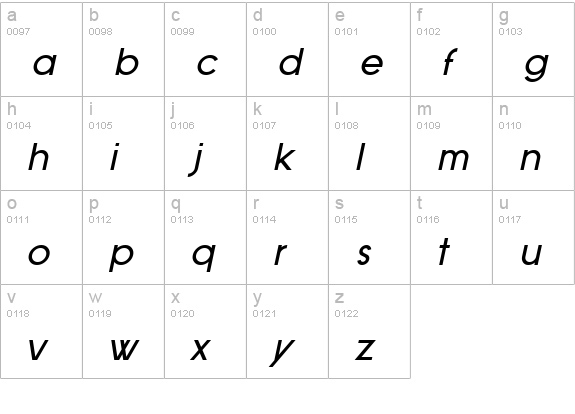
SF Old Republic Italic Font Details
SF Old Republic Italic is a distinctive, italic variant in the SF typeface family \xE2\x80\x94 well suited to design and typography projects.
Introducing SF Old Republic Italic font, a mesmerizing typeface that effortlessly captures the essence of a bygone era. This exquisite font pays homage to the illustrious days of the Old Republic, where tales of epic adventures and timeless legends were forged. With its elegant and graceful strokes, SF Old Republic Italic font transports you to a world of limitless imagination. Whether you are designing a book cover, creating a logo, or crafting a vintage-inspired poster, this font will add a touch of authenticity and nostalgia to your project. The beauty of SF Old Republic Italic font lies not only in its captivating aesthetics but also in its versatility. Its delicate slant and distinctive letterforms make it suitable for a wide range of creative endeavors, from branding and advertising to web design and social media graphics. And the best part? SF Old Republic Italic font is available for free! Yes, you read that right - this remarkable font can be freely downloaded at FontsMarket.com. So, unleash your creativity without any limitations or constraints. Embrace the allure of the Old Republic and let SF Old Republic Italic font elevate your designs to new heights. Incorporate this enchanting font into your projects and watch as it breathes life into your words, adding an air of sophistication and charm. So, what are you waiting for? Embrace the magic of SF Old Republic Italic font and embark on a creative journey like no other. Download it now at FontsMarket.com and let your imagination run wild.